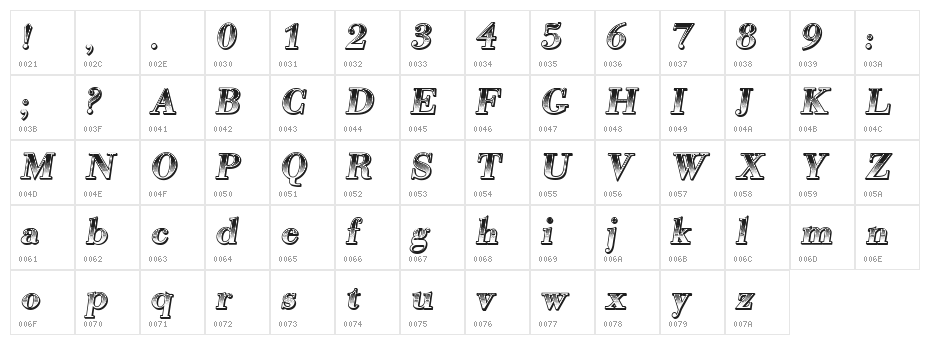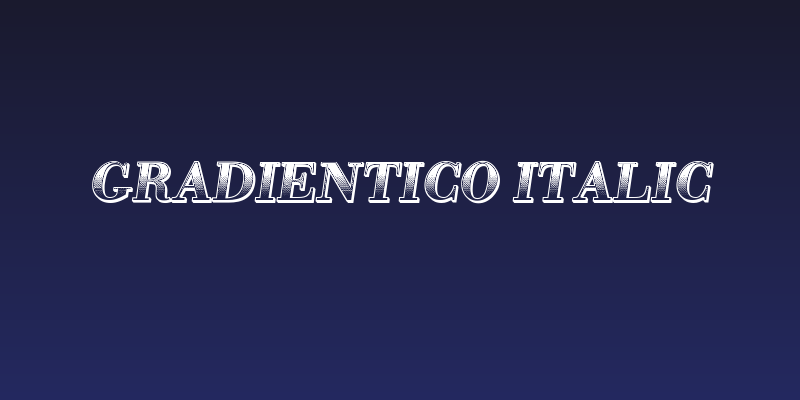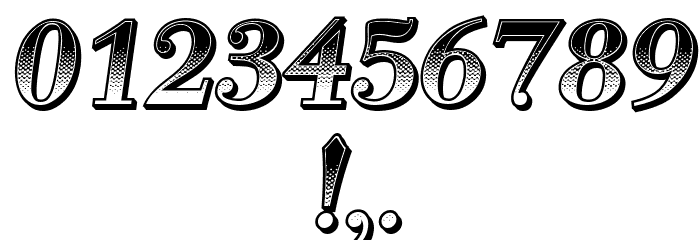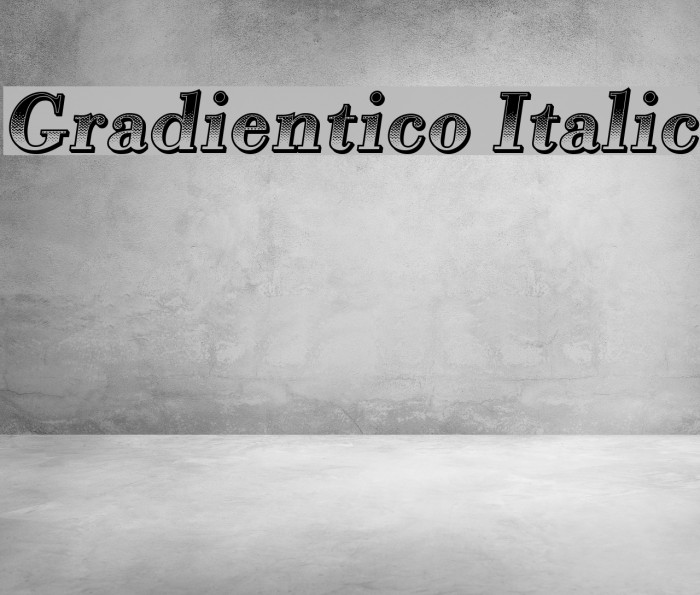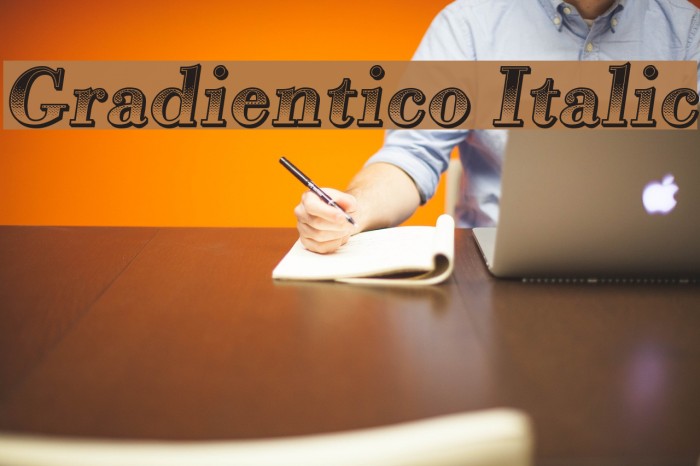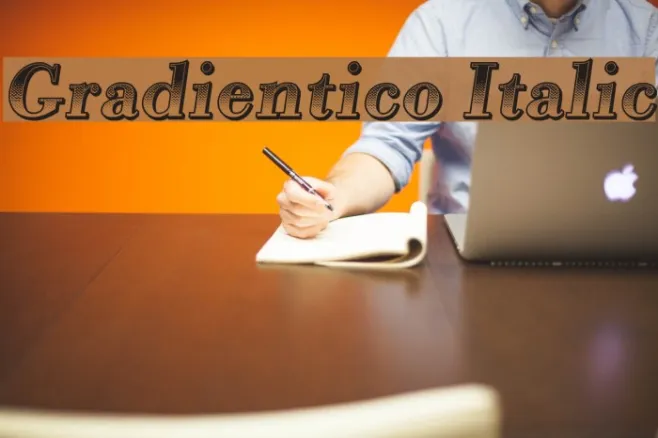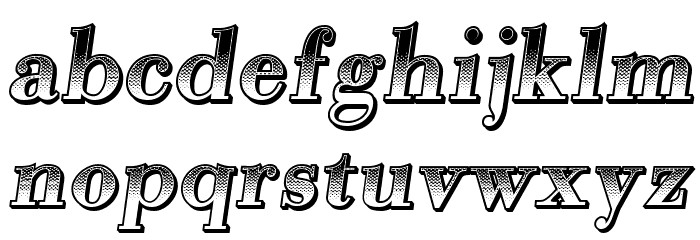
Gradientico Italic Font
Gradientico Italic Description
This font features a bold and dynamic design with a distinct italic slant, giving it a sense of movement and energy. The characters are adorned with a unique gradient pattern, adding depth and texture. The serif style is prominent, with sharp, angular serifs that enhance its bold appearance. The uppercase and lowercase letters maintain a consistent style, while the numerals and special characters are equally well-crafted, ensuring versatility across various applications. The overall aesthetic is modern yet retains a classic touch, making it suitable for eye-catching designs.
| Proposed Projects | Ideal for branding, posters, headlines, and any design requiring a striking and modern serif font. |